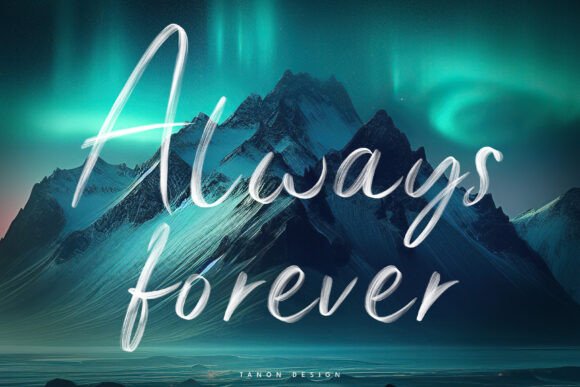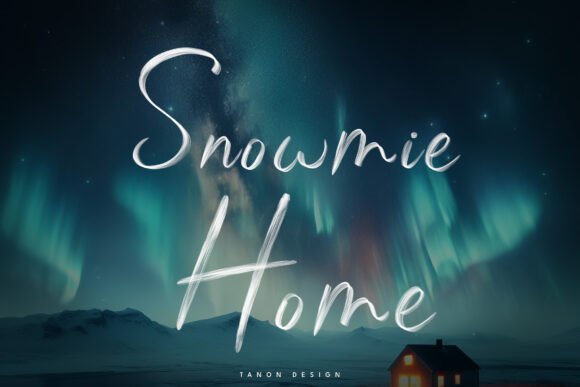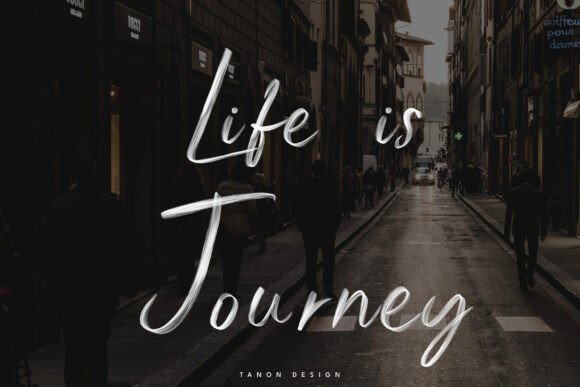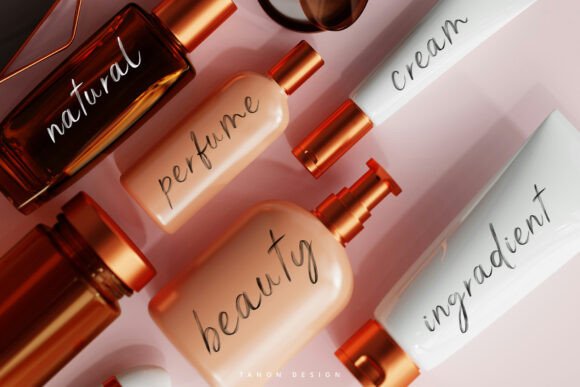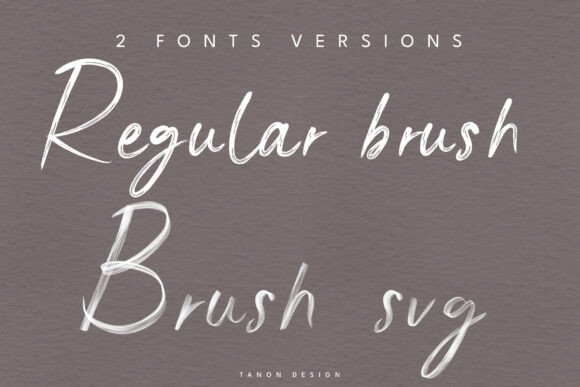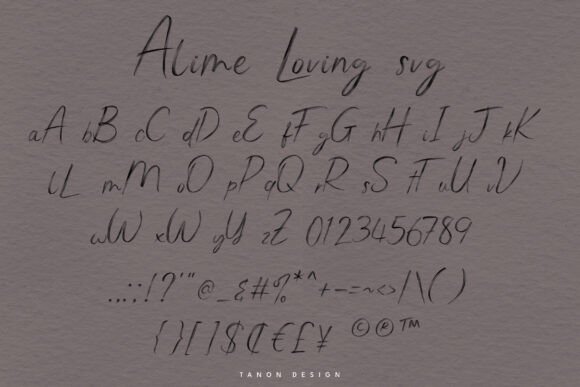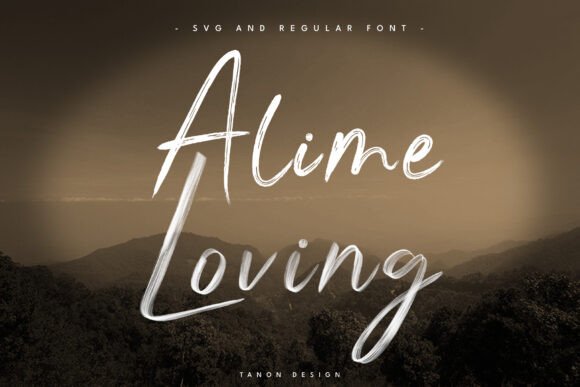
Introducing Alime Loving: The Ultimate Handwritten Brush Font for Designers and Crafters
Are you tired of using the same old fonts in your designs? Do you want to add a personal touch to your projects? Look no further than Alime Loving, a beautiful handwritten brush font that is perfect for designers and crafters alike. In this article, we’ll introduce you to the Alime Loving font set, which includes two amazing fonts – Regular and SVG – that will take your designs to the next level.
What is Alime Loving Font?
Alime Loving is a realistic brush font that mimics the look and feel of handwritten text. The font is designed to be versatile and can be used in a variety of projects, including t-shirt designs, mug designs, digital designs, crafts, cards, and more. With its unique and charming style, Alime Loving is sure to add a touch of personality to any design.
Key Features of Alime Loving Font
• Realistic Brush Font: Alime Loving is a genuine handwritten brush font that gives your designs a personal and authentic look.
• Two Font Styles: The Alime Loving font set includes two amazing fonts – Regular and SVG – that can be used in different design projects.
• High-Quality Design: The font is designed with high-quality lines and curves, making it perfect for printing and digital use.
Benefits of Using Alime Loving Font
So why choose Alime Loving font for your designs? Here are just a few benefits of using this amazing font:
• Adds Personality to Your Designs: Alime Loving font adds a unique and charming touch to your designs, making them stand out from the crowd.
• Increases Engagement: The handwritten style of Alime Loving font creates a personal connection with your audience, increasing engagement and interaction.
• Versatile: Alime Loving font can be used in a variety of projects, from t-shirt designs to digital designs, making it a great addition to your design library.
Tips and Tricks for Using Alime Loving Font
Here are some tips and tricks for getting the most out of Alime Loving font:
• Experiment with Colors: Try pairing Alime Loving font with different colors to create unique and eye-catching designs.
• Mix and Match Fonts: Combine Alime Loving font with other fonts to create interesting and dynamic designs.
• Pay Attention to Kerning: Make sure to adjust the kerning of Alime Loving font to ensure that it looks its best in your designs.